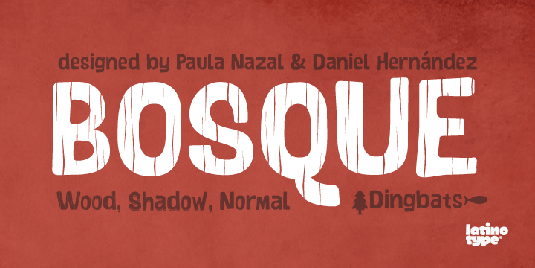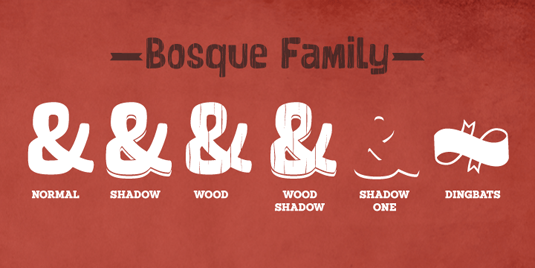
Font of the day: Bosque
Bosque by Paula N Selaive and Daniel Hernández
Designed by Paula N Selaive and Daniel Hernández, Bosque is perfect for tapas bar branding, Latino-themed literature and much more. You can get hold of it from Latinotype with single weights coming in at $29.